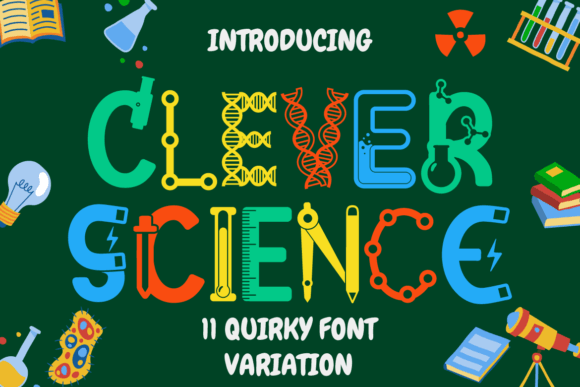
Clever Science Font: A Delightful and Versatile Typeface for Education-Themed Designs
The Clever Science font is a unique and charming typeface designed specifically with education in mind. Its quirky, rounded characters and playful appeal make it an excellent choice for a wide range of design projects related to children, schools, and education. In this article, we’ll explore the features and benefits of the Clever Science font and how it can elevate your designs.
A Playful and Cheerful Font
The Clever Science font features rounded characters with a playful and cheerful appeal at each endpoint. This delightful typeface is designed to bring a fun and educational atmosphere to your designs. The font’s playful nature makes it perfect for projects aimed at young audiences, such as children’s books, kids’ magazines, and educational materials.
11 Distinctive Variations
One of the standout features of the Clever Science font is its 11 distinctive variations. These variations include:
- Regular
- Lab
- DNA
- Electric
- Tube
- Ruler
- Gear
- Microscope
- And more!
These variations allow you to experiment with different styles and themes, making it easy to find the perfect fit for your design project.
Perfect for Education-Themed Designs
The Clever Science font is perfectly suited for projects related to children, schools, education, cheerfulness, playfulness, and kindergarten themes. Its playful and educational theme makes it an excellent choice for:
- Logos
- Crafting projects
- Invitations
- Children’s activities
- Birthday cards
- Greeting cards
- Stickers
- Children’s books
- Kids’ magazines
Benefits of Using Clever Science Font
So, why choose the Clever Science font for your design project? Here are just a few benefits:
- Playful and engaging: The Clever Science font helps you create engaging and charming visuals for young audiences and educational purposes.
- Versatile: With 11 distinctive variations, you can experiment with different styles and themes to find the perfect fit for your project.
- Easy to use: The font is easy to integrate into your designs, making it perfect for a wide range of projects.
- Unique: The Clever Science font is a one-of-a-kind typeface that will set your designs apart from the rest.
Tips for Using Clever Science Font
Here are a few tips for getting the most out of the Clever Science font:
- Experiment with different variations: Try out different variations of the font to find the perfect fit for your project.
- Pair with other fonts: Combine the Clever Science font with other fonts to create a unique and visually appealing design.
- Use in combination with images: The Clever Science font pairs well with images, so consider using it in combination with illustrations or graphics.
The Clever Science font is a delightful and versatile typeface designed specifically with education in mind. Its playful and cheerful appeal, combined with its 11 distinctive variations, make it an excellent choice for a wide range of design projects related to children, schools, and education. Whether you’re creating logos, crafting projects, or children’s books, the Clever Science font is sure to bring a fun and educational atmosphere to your designs.
- What is the Clever Science font? The Clever Science font is a unique and charming typeface designed specifically with education in mind.
- How many variations does the Clever Science font have? The Clever Science font has 11 distinctive variations.
- What types of projects is the Clever Science font suitable for? The Clever Science font is perfect for projects related to children, schools, education, cheerfulness, playfulness, and kindergarten themes.